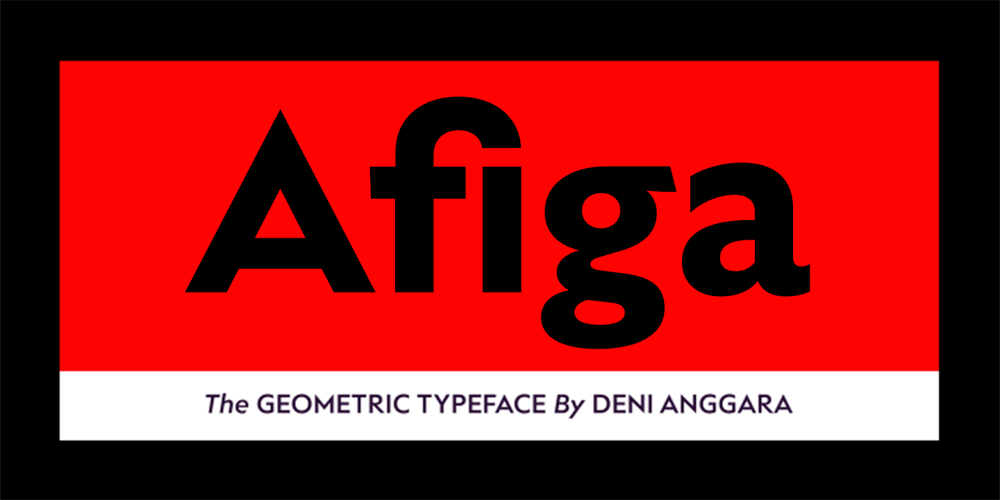
Afiga Font Family was designed by Deni Anggara and published by Degarism Studio. Afiga contains 14 styles and family package options. Afiga is a is humanist sans-serif a modern type family inspired form British typography of the early 20th century, Simple and fresh typeface for visual identities, book covers, magazines, and advertisement.Afiga typeface consists of 7 style plus “true italic” set. All of the styles together have over 700 characters, supports more than 50 languages – in Latin based languagesAfiga supports OpenType features for fine typography, including Alternate characters, old style figures, Tabular Numbers, proportional figures, ligatures, superscript and subscript figures and support for fractions.